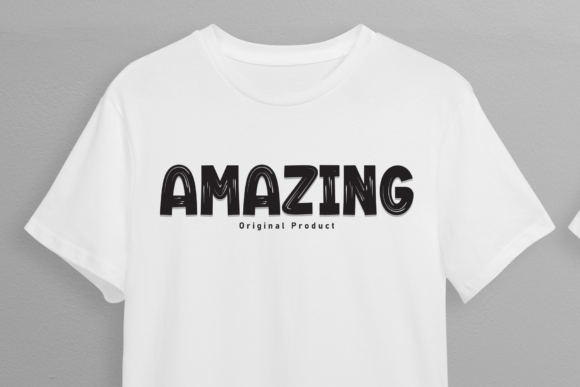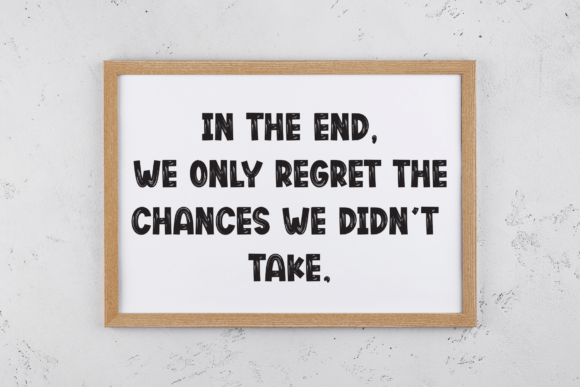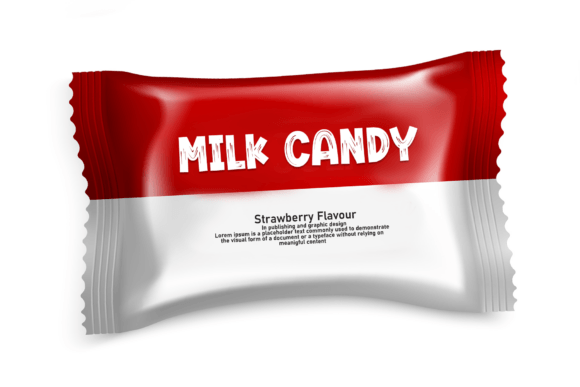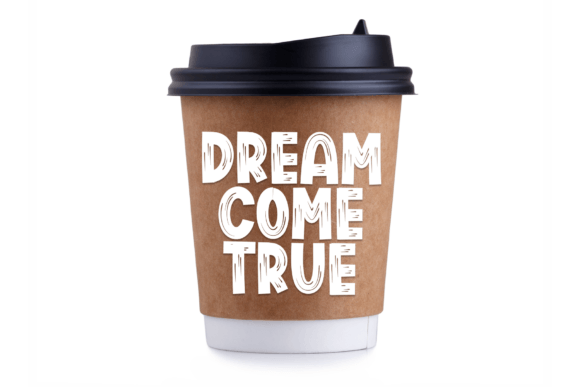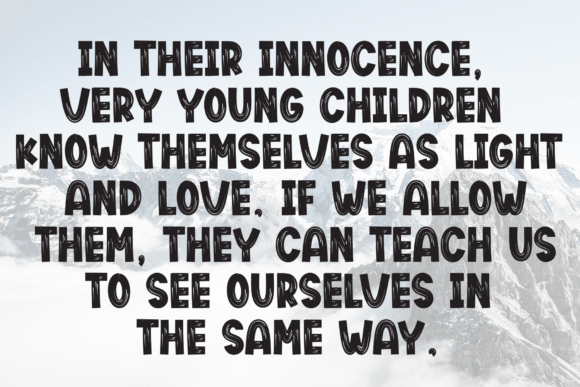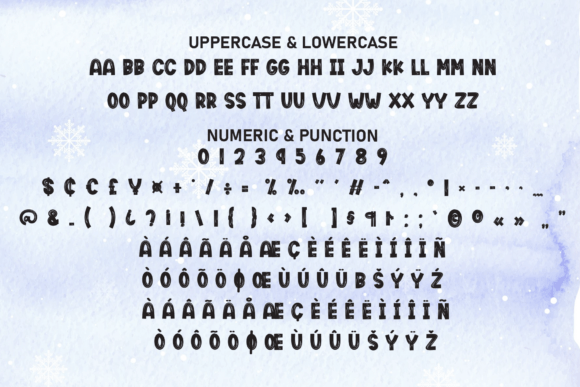
Introduction to Snow Brush Font
Snow Brush is a bold, playful font with a brushstroke style.
It has a unique, hand-painted look, making it perfect for adding a fun, artistic touch to your designs The thick strokes and dynamic curves make it stand out and grab attention.
Key Features of Snow Brush Font
Why Choose Snow Brush Font?
Snow Brush Font offers exceptional quality and versatility, making it a valuable addition to your design toolkit. Whether you’re creating for personal projects or commercial use, Snow Brush Font delivers professional results.